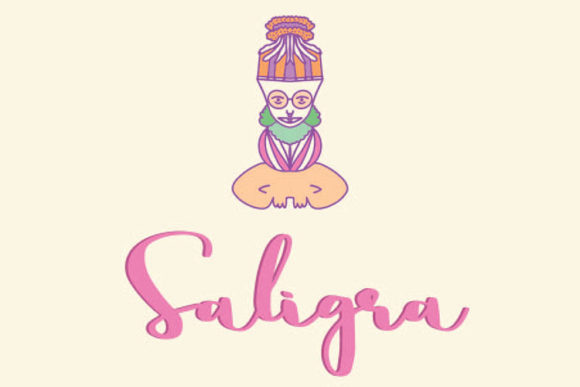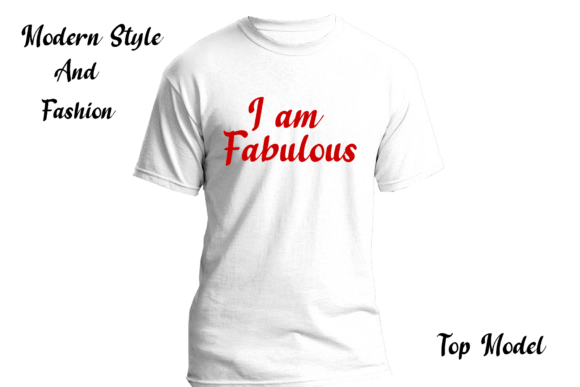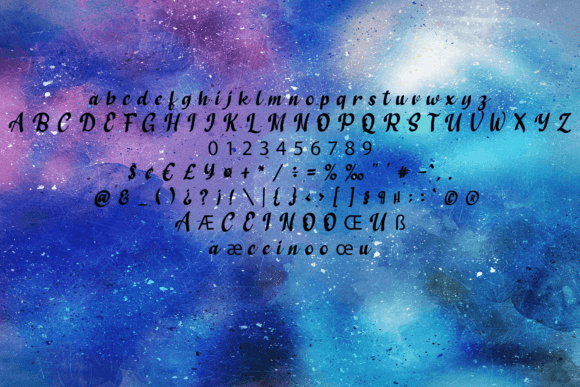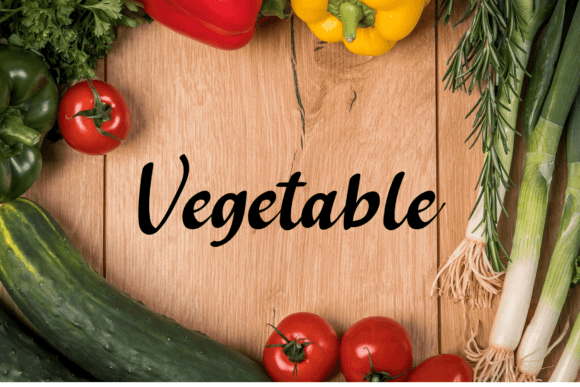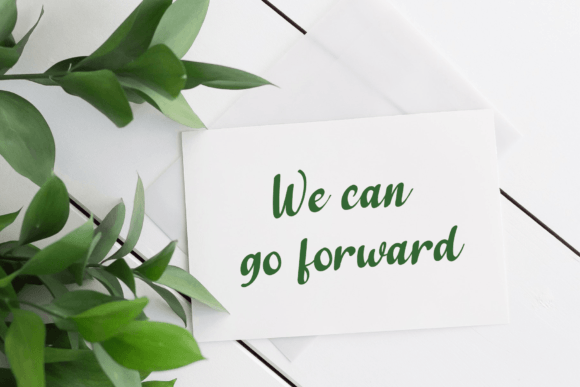
About Amsterdam Font
Amsterdam is a fun and friendly handwritten font. Use it to turn any design idea into a true standout. Get inspired by its unique charm and create lovely designs.